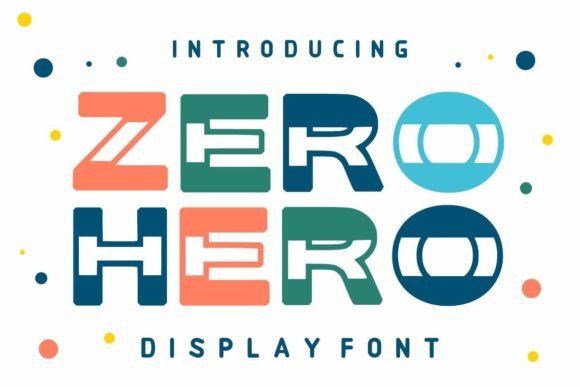
Step into the realm of captivation with Zero Hero font, a modern masterpiece by Infinity Art Studio. This innovative font family ushers in a new era of readability, transforming your designs into visually striking masterpieces.
With its youthful and playful nature, Zero Hero is the perfect companion for photo books, adding a touch of whimsy and charm to your treasured memories. Its effortless legibility ensures that every word, every emotion, and every story shines through, captivating readers with its disarming simplicity.
Beyond photo books, Zero Hero's versatility extends to digital designs, presentations, and greeting cards. Its ability to adapt seamlessly to various platforms and purposes makes it an indispensable tool for creative professionals and hobbyists alike. Its friendly and approachable demeanor makes it a natural choice for crafting heartfelt messages and heartfelt expressions.
Zero Hero isn't just a font; it's an experience. Immerse yourself in its world of limitless possibilities, where creativity knows no bounds. With Zero Hero by your side, transform the ordinary into the extraordinary, one letter at a time. Its enchanting presence will leave a lasting impression, captivating hearts and minds wherever it goes.